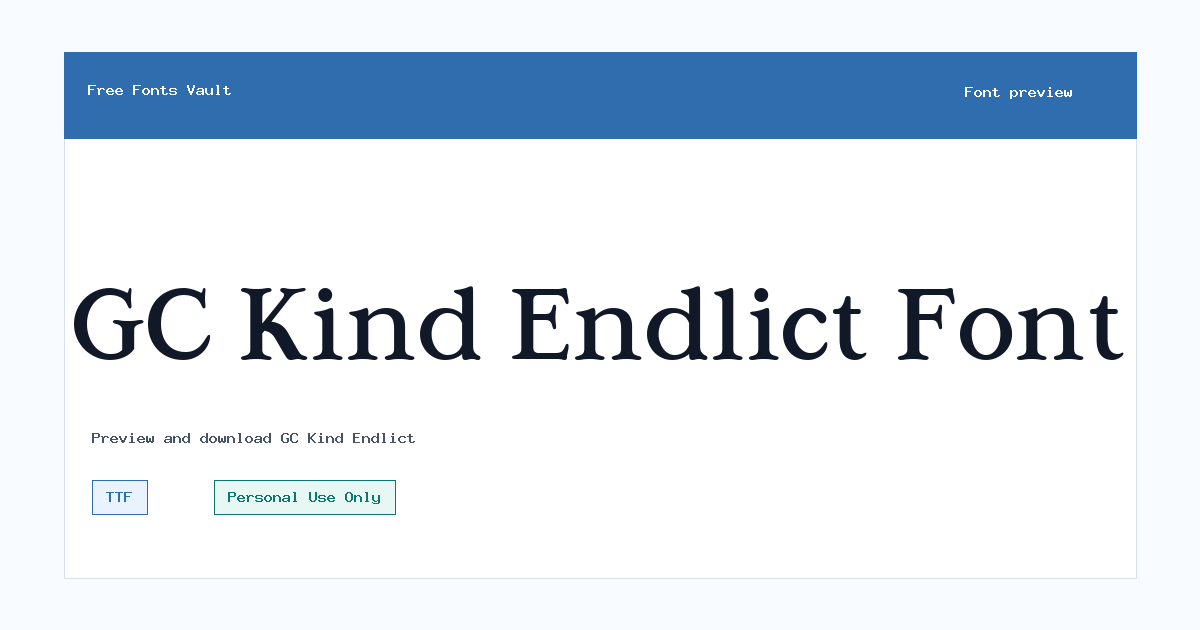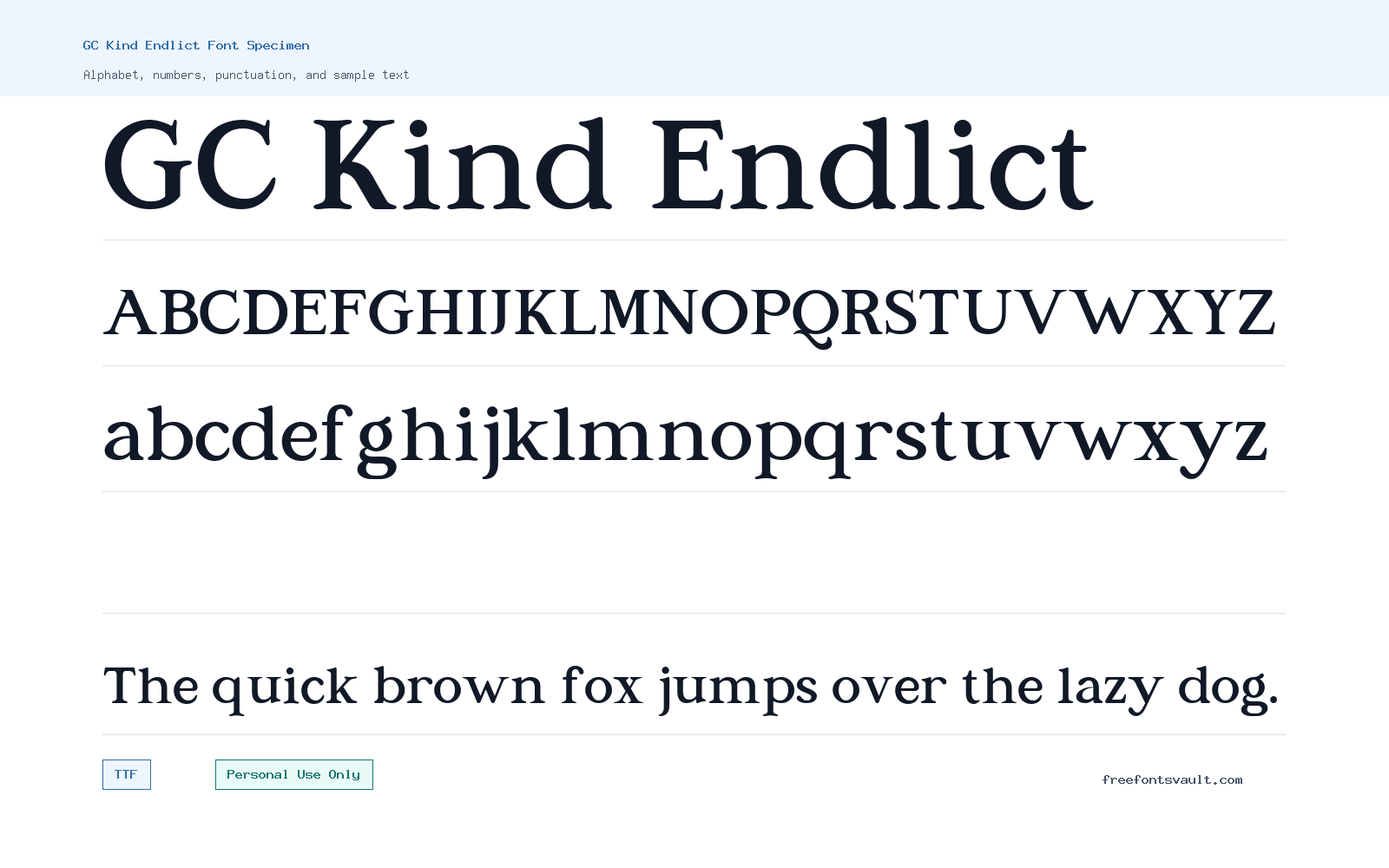
GC Kind Endlict
- Designer Ken Priska Dewirani of Glyphonic
GC Kind Endlict is a serif font for personal projects, created by Ken Priska Dewirani of Glyphonic. It is a good font to preview when you need a display-style serif for titles, invitations, social graphics, or other short pieces of text.
About GC Kind Endlict
GC Kind Endlict works best when you treat it as a font for focused text rather than long reading. Because the available file is a regular TTF style, it is easy to test in common design apps and font preview tools. Start with names, headings, logo drafts, quotes, labels, or a few words at a time, then check whether the spacing and letter shapes still feel clear at the size you plan to use.
For visitors comparing fonts, the most useful step is to type your own words into the preview before downloading. Try uppercase, lowercase, numbers, and any punctuation you expect to use. If the font is being considered for a poster, cover image, card, or website mockup, test it at the final size rather than judging it only from a sample line. Serif display fonts can look strong in short headings but may become harder to read in small paragraphs, so pair GC Kind Endlict with a simpler text font when you need body copy.
- Serif style suited to short display text, headings, and decorative personal designs.
- Personal invitations, quote graphics, cards, and small display layouts.
- Title treatments, branding drafts, poster headings, and social media text previews.
GC Kind Endlict is credited to Ken Priska Dewirani of Glyphonic, with Glyphonic listed as the foundry.
Who designed GC Kind Endlict?
The font is credited to Ken Priska Dewirani of Glyphonic.
What should I use GC Kind Endlict for?
Use it for short personal-use designs such as headings, cards, invitations, quote images, and title mockups. Avoid relying on it for long paragraphs unless you have tested readability carefully.